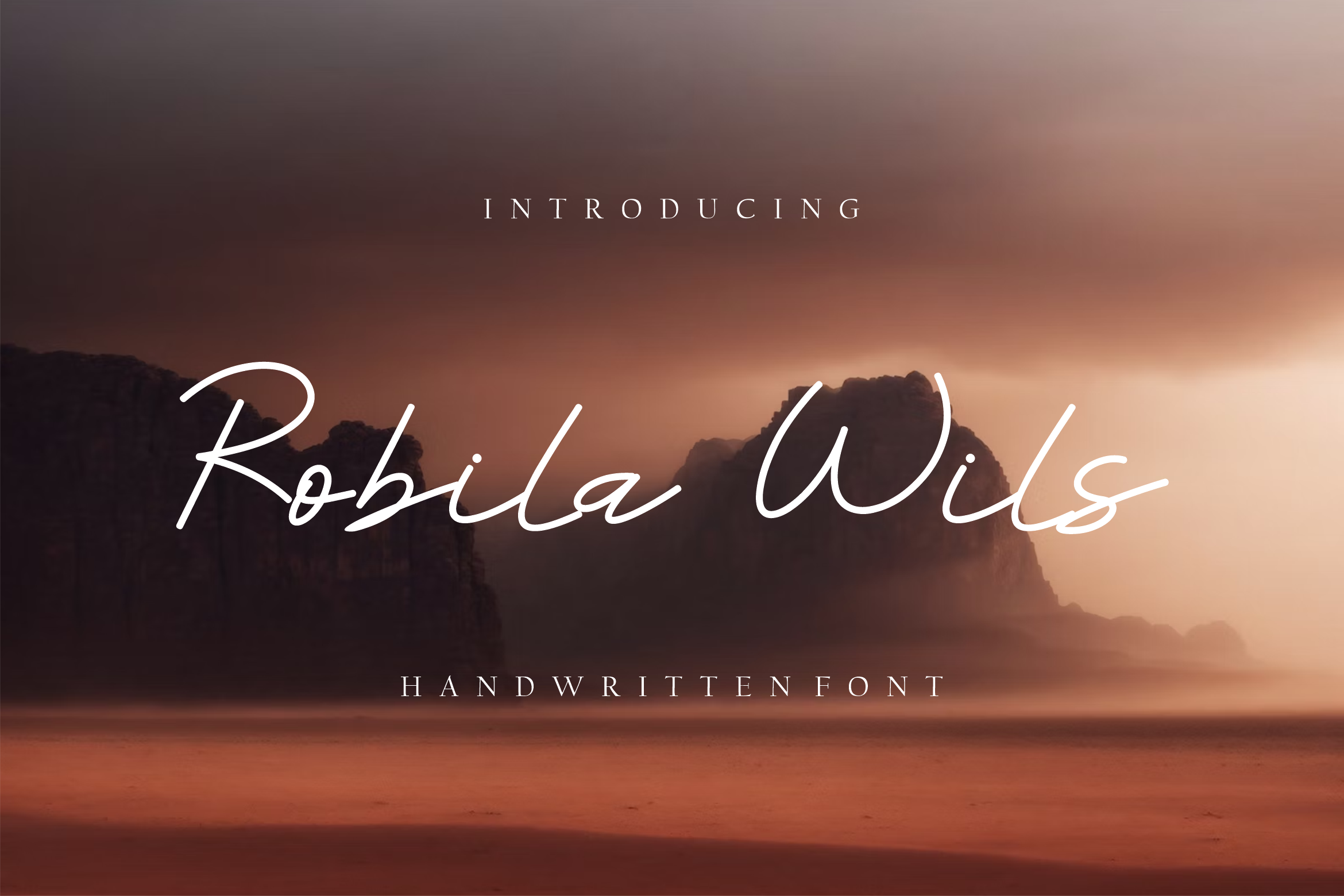
Robila Wils Handwritten Font.
Robila Wils Handwritten Font - related to travel, history & culture in the present/modern way,lifestyle designs such as logos, title, magazine, and more.